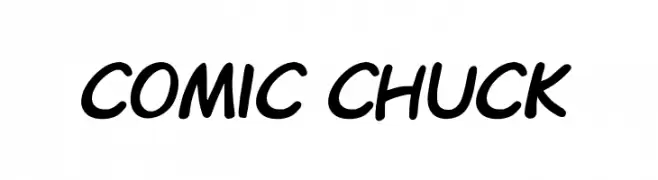
( George Nikolaidis - www.behance.net/ndesign-greece )
A playful, hand-drawn font with decorative dots and a whimsical style.
( Darrell Flood )
A bold, dynamic handwritten script font with fluid, connected characters.
( I Like Fonts - Alan Alan )
A bold, playful font with a hand-drawn, informal style.
( Goma Shin - gomaricefont.web.fc2.com/ )
A bold, geometric font with strong, angular lines and a modern look.
( FatFactory - Mico Samardzija )
A modern geometric font with high contrast and stylish, elongated forms.
( Colorbean )
A minimalist, geometric font with clean lines and rounded edges.
( Colorbean )
A modern, geometric sans-serif font with a bold and clean design.
( Colorbean )
A clean, geometric font with a modern and balanced design.
( Gartype Studio )
A bold, decorative font with unique uppercase flair and consistent lowercase design.
( E.V. Norat - twofortheroad.tripod.com/ )
A bold, geometric font with a modern, mid-century signage style.
( Harrison Weber - harrisonweber.com )
A decorative font with sharp angles and geometric shapes, ideal for fantasy-themed projects.
( Hanoded - David Kerkhoff - www.hanodedfonts.com )
A playful, hand-drawn font with tall, narrow letterforms and subtle curves.
( Hubert Wedel - hubertwedel.com )
A bold, angular font with a futuristic and geometric design.
( Extram Studios - Lewis Bauer )
A modern, geometric font with clean lines and a slightly condensed style.
( Gaelleing )
A playful, dotted font with a hand-drawn aesthetic, perfect for creative projects.
( Craft Supply Co. - creativemarket.com/craftsupplyco )
A bold, textured font with a vintage, hand-crafted appearance.
( Doug Sheets - dougsheets.com )
A bold, classic serif font with strong, impactful characters.
( Here Be Monsters - monsterswithin.com )
A playful, hand-drawn font with dynamic curves and uneven lines.
( Geronimo Font Studios - Geronimo )
A playful, hand-drawn font with a cartoonish, nostalgic style.
( Emin Gokceoglu - be.net/emin )
A sleek, modern font with geometric lines and a minimalist aesthetic.
( Cropstudio - Crop Studio - creativemarket.com/Cropstudio )
A graceful and flowing script font with high contrast and elegant curves.
( EvasUniqueFonts - Eva Barabas - www.etsy.com/ie/shop/DigitalTypefaceS )
An elegant script font with flowing, interconnected letters and a sophisticated style.
( HENRIavecunK - Henrik )
A bold, stencil-style font with geometric shapes and high contrast, ideal for impactful headlines.
( Darrell Flood )
A bold, playful font with a hand-drawn, organic style.
( Darrell Flood )
A bold, italic script font with a handwritten, flowing style.
( David Engelby )
A modern, elegant font with clean lines and a sophisticated appearance.
( Haris Prawoto - graphicriver.net/user/selawe/portfolio )
A bold, dynamic brush-style font with expressive strokes and a sense of motion.
( Factory738 - creativemarket.com/factory738 )
Bold, modern font with uniform stroke width and geometric shapes.
( Dez C - www.dezcustomcreations.com )
A playful, handwritten font with smooth, flowing lines and a whimsical style.
( INKsTYPIA - Andi Winarno - inkstypia-std.blogspot.com )
A bold, playful handwritten font with thick strokes and a casual style.
( Debut Studio - Ari Fadli - creativemarket.com/debutstudio )